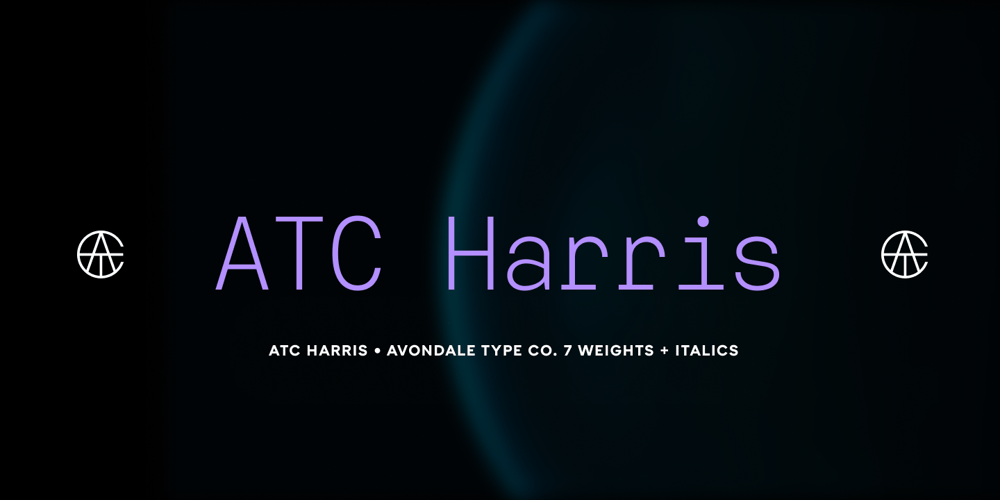
ATC Harris Font Family was designed by Jason Schwartz and published by Avondale Type Co.. ATC Harris contains 10 styles and family package options. ATC Harris is a a workhorse monospaced geometric font with a focus on simplicity and legibility.Font contains 580+ glyphs, full alphabet, ligatures, numerals, accents and punctuation. ATC Harris was released in 2016.